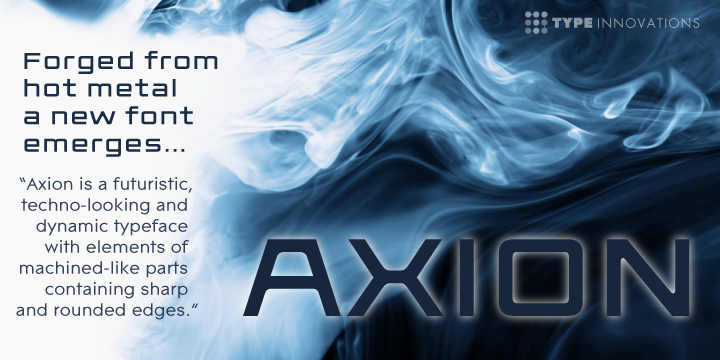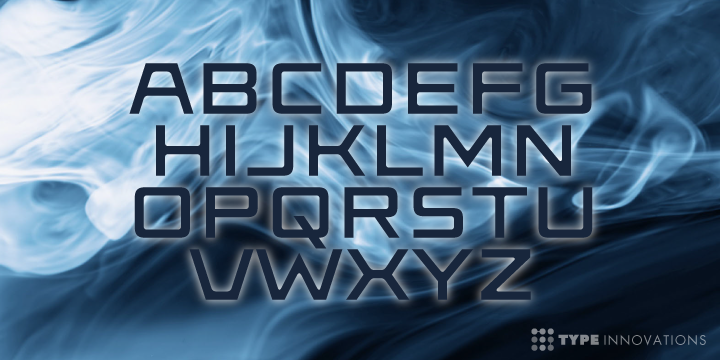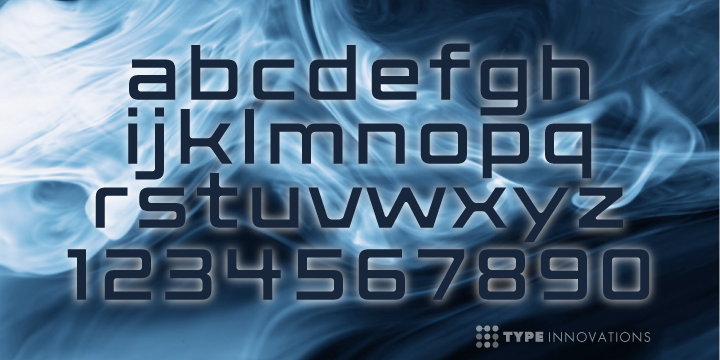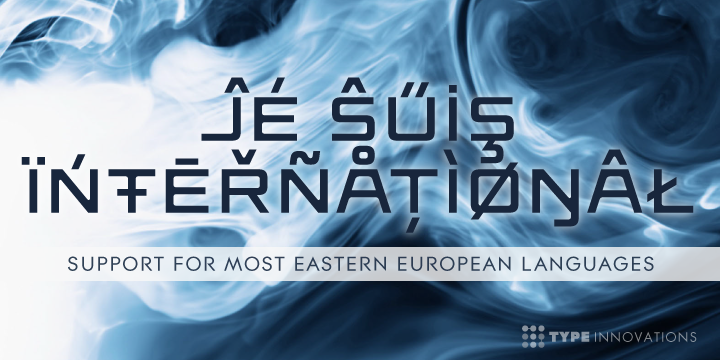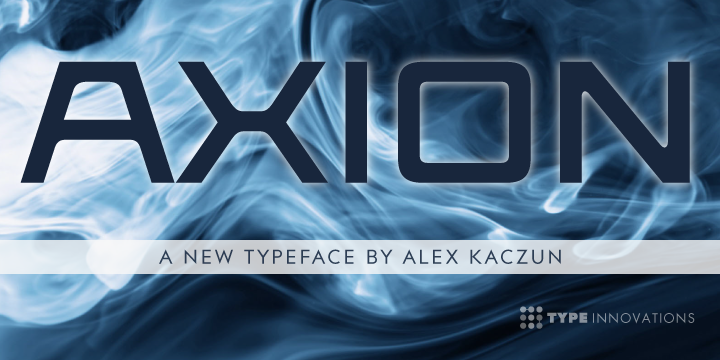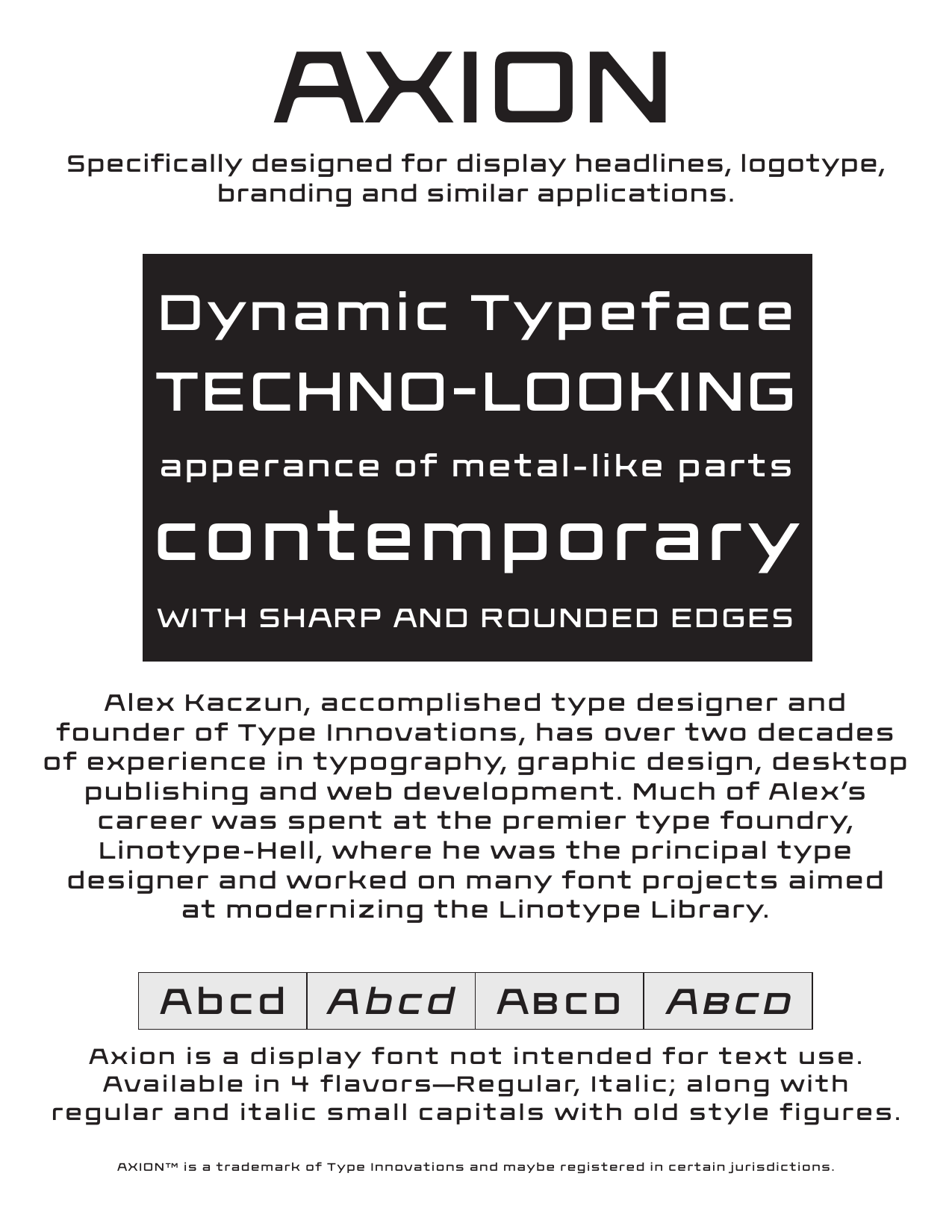
Axion Collection
Axion
Regular Italic
Axion ScOsf
Regular Italic
Axion is an original design by Alex Kaczun. It is a display font not intended for text use. It was designed specifically for display headlines, logotype, branding and similar applications. The entire font has an original look which is strong, dynamic, machine generated and can be widely used in publications and advertising.
Axion is a futuristic, techno-looking and dynamic typeface with elements of machined-like parts containing sharp and rounded edges. This attractive display comes in roman with lower case and lining figures. The font is also available with true-drawn slant italics. Other design style variations include small capitals with old style figures.
The large Pro font character set supports most Central European and many Eastern European languages.